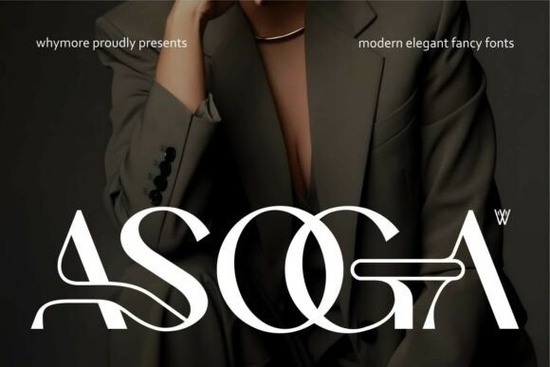
Looking for a serif font that brings elegance and personality to your designs without feeling outdated? Asoga Font is a modern serif typeface crafted for creators who value clean lines, expressive details, and a touch of luxury. It’s perfect if you're working on fashion branding, editorial layouts, social media graphics, or logo design and want something that feels both refined and fresh.
What makes Asoga Font stand out?
Unlike many serif fonts that lean too formal or overly dramatic, Asoga strikes a balance bold enough to catch attention, yet delicate in its curves and proportions. The letterforms are carefully shaped with smooth transitions and subtle variations in stroke weight, giving it a handcrafted feel without sacrificing readability.
You’ll notice unique features like custom ligatures and stylized characters that add visual interest, especially in headlines and titles. These aren’t just decorative they help build a stronger brand identity by making your text more memorable.
Where can you use Asoga Font?
It works well across many creative projects:
- Fashion & lifestyle branding – Ideal for high-end labels, lookbooks, or campaign visuals
- Editorial layouts – Great for magazines, newsletters, or digital publications
- Social media content – Makes posts and stories feel polished and intentional
- Logo design – Offers a sophisticated alternative to generic serif fonts
- Print-on-demand products – Perfect for t-shirts, mugs, and stationery with a premium look
If you’re a small business owner or hobbyist creating digital or physical goods, Asoga adds instant credibility to your work.
How does Asoga compare to other serif fonts?
For example, if you’ve used Asoga Font in a product mockup, you might find it pairs beautifully with minimalist backgrounds or soft textures, letting the typography shine.
Why designers choose Asoga
Many creatives appreciate how the font maintains clarity at smaller sizes while still making an impact at larger scales. Whether you're designing a business card or a full-page ad, Asoga adapts naturally. Its open counters (the spaces inside letters like 'o' or 'a') improve legibility, which is essential when your message needs to be read quickly.
Plus, it supports multiple languages and includes alternate glyphs, so you can customize your text to fit your project’s tone whether that’s elegant, playful, or serious.
Try it with other fonts for better results
Pairing Asoga with a simple sans-serif font often creates a balanced contrast. For instance, using it alongside a clean, neutral font like Helvetica or Inter helps keep your design from feeling too busy. This combo works especially well in print-on-demand projects where clarity and style go hand-in-hand.